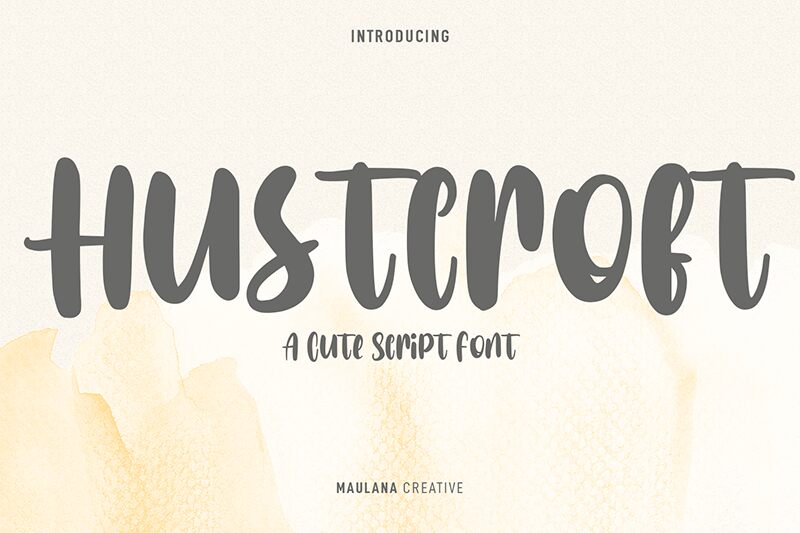
Hustcroft Free Regular
Hustcroft, the adorable script font designed by Maulana Creative, is perfect for adding a touch of charm to any project. Its bold weight and condensed width make it ideal for headlines, titles, and branding materials that require impact and legibility. With its playful curves and whimsical flourishes, Hustcroft is the perfect choice for children's books, greeting cards, and invitations. Use it to create eye-catching signage or packaging designs that will stand out from the crowd. Whether you're working on a website design or creating marketing materials for your business, Hustcroft's cute script style is sure to add a touch of personality and creativity to your work.